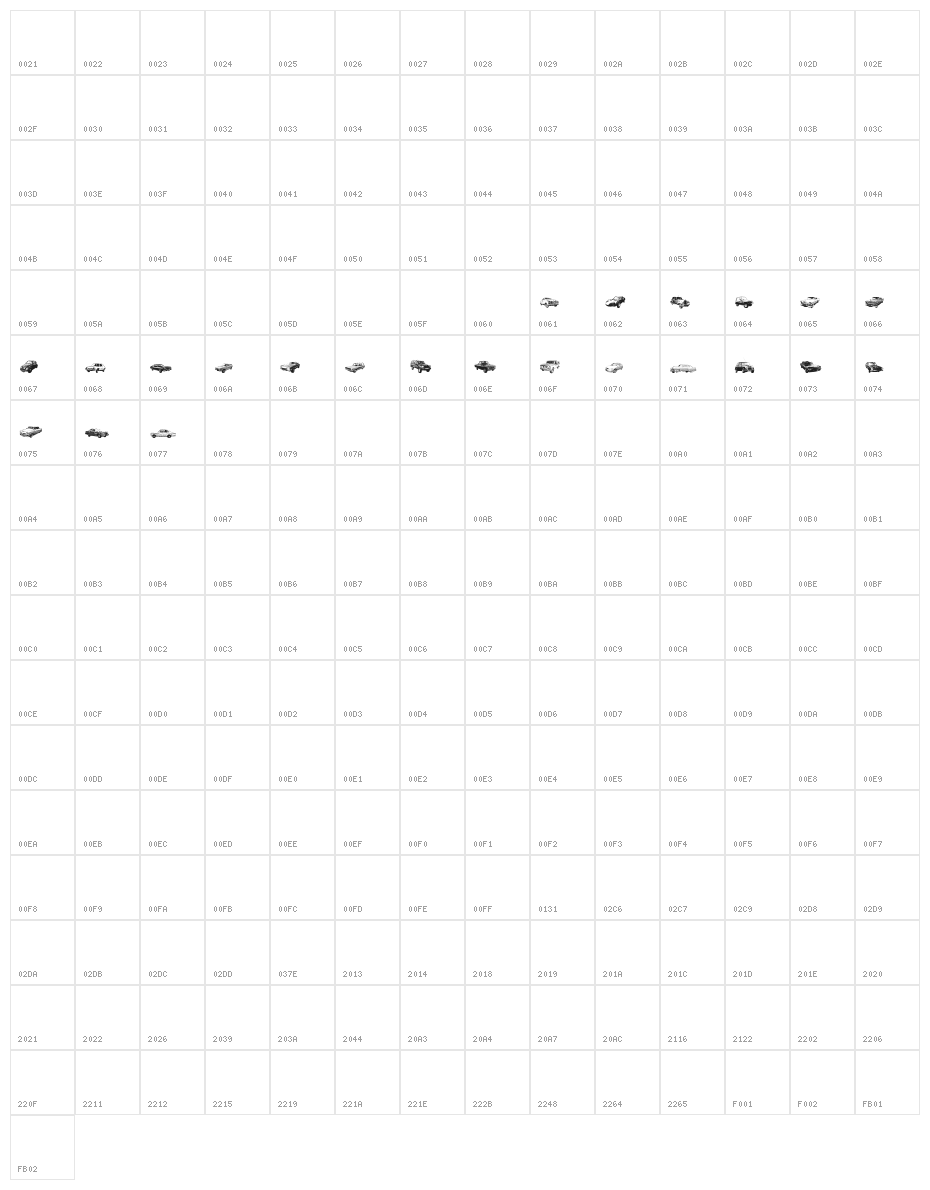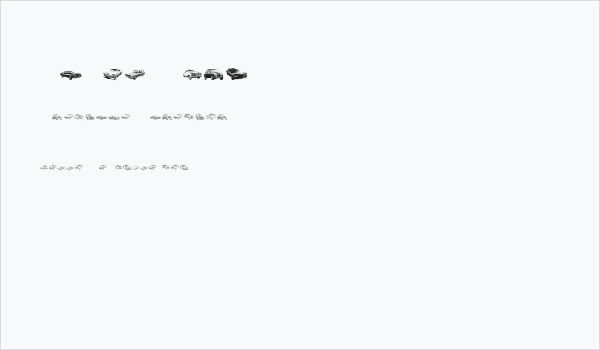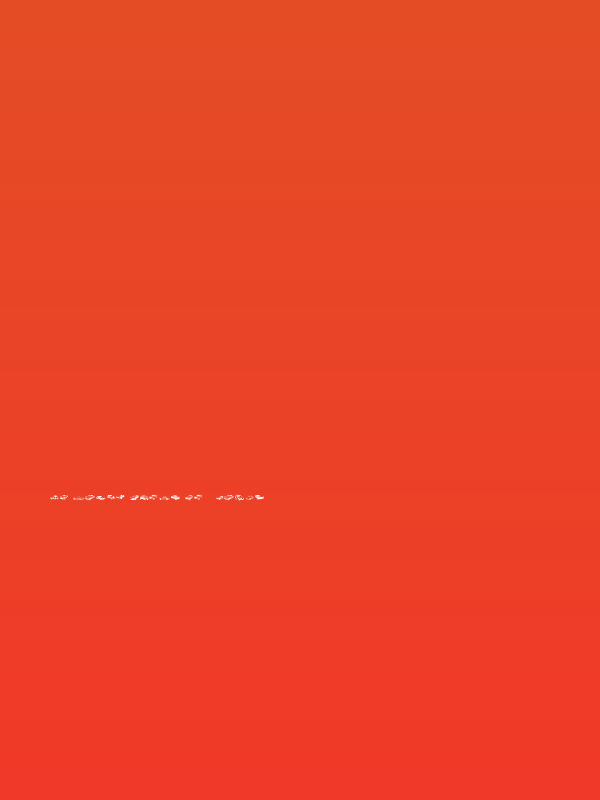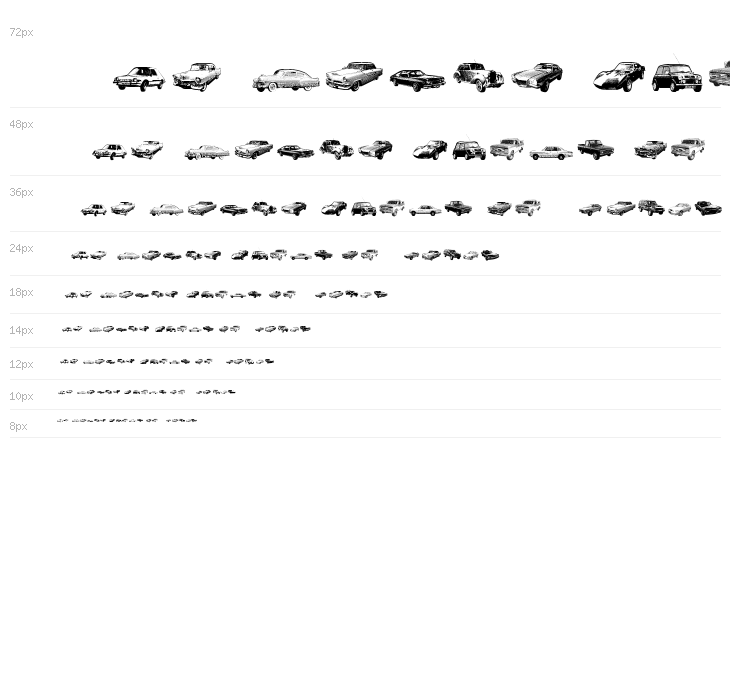
Pixel Cars Font
Pixel Cars Description
A decorative display font where each character is represented by a pixelated, black-and-white illustration of a car viewed from various angles. The glyphs are highly detailed and unique, with each letter and number corresponding to a different car model, making the font visually distinctive and playful.
| Overall Style | Decorative, Retro, Playful |
| Use Case | Headlines, Logos, Posters, Themed Graphics |
| Proposed Projects | Ideal for automotive-themed posters, retro video game titles, event flyers, novelty signage, and creative branding projects. |